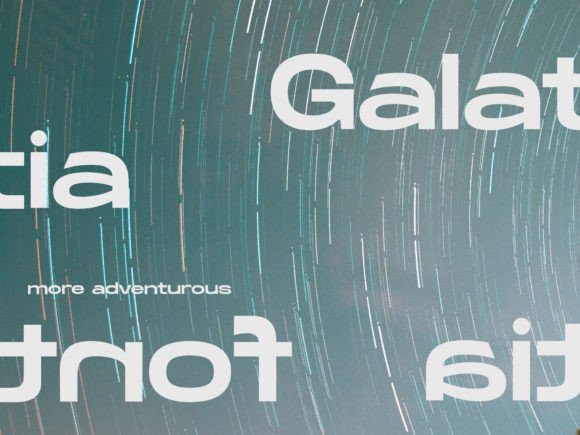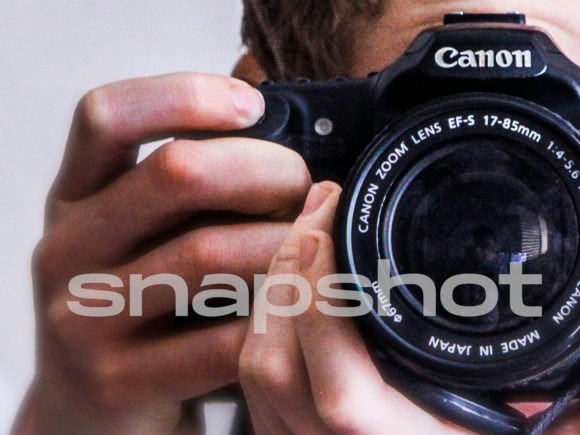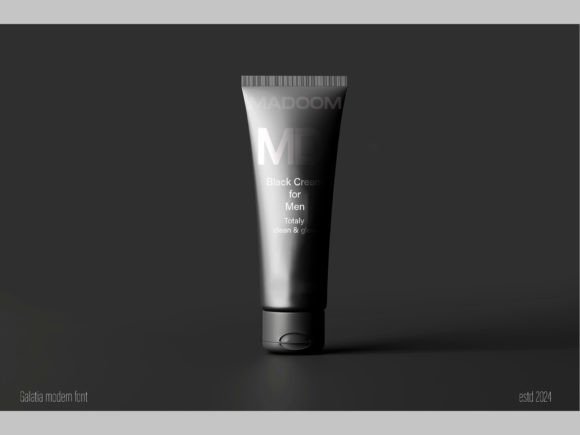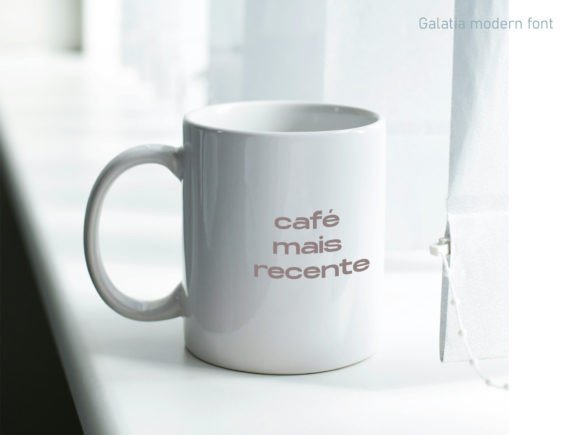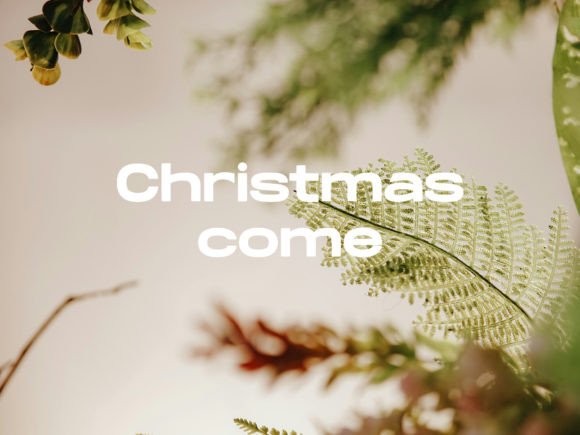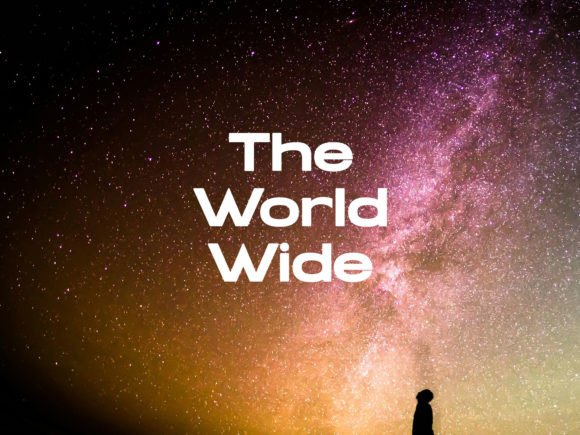
Introduction to Galatia Font
Have you ever stared at a blank page, waiting for the perfect font to spark your creative vision? For many designers, this is a familiar moment – a moment of inspiration and frustration all at once. As you search for the ideal design resource, you might stumble upon the Galatia Font, a game-changing addition to your toolkit.
With its ultra-modern aesthetics and robust dynamism, the Galatia Font is a masterfully crafted typeface that effortlessly captures attention. Whether you’re working on a high-profile project or a personal creative endeavor, this font is sure to bring a touch of sophistication to your design. Plus, with its transparent background and high-quality design, you can easily use it for free downloads or incorporate it into your existing design resources.
As a valuable asset for designers, the Galatia Font offers a refreshing uniqueness that can elevate any creative project. From logos to brochures, its bold and clean contours make it the perfect choice for asserting your design charisma with confidence.
Key Features of Galatia Font
- Galatia Font is a high-quality design resource ideal for creative projects requiring elegant typography.
- Features a transparent background, allowing for seamless integration with any design or creative project.
- Galatia Font is designed to be highly legible, making it perfect for use in a variety of contexts, from body text to headings.
- The font’s unique, elegant design makes it an excellent choice for creative projects requiring a touch of sophistication.
- Galatia Font is a high-resolution font, ensuring crisp and clear typography in any design or creative project.
Honest Review: Galatia Font
I recently had the chance to work with the Galatia Font and I must say it’s been a game-changer for my design projects. With its free download option, I was able to easily incorporate it into my workflow without breaking the bank.
One of the standout features of the Galatia Font is its high-quality design. The font has a beautiful, elegant aesthetic that’s perfect for creative projects that require a touch of sophistication. I particularly love the transparent background option, which allows for seamless integration with my design elements.
Here are some of the things that work well with the Galatia Font:
- ✨ Elegant design aesthetic that’s perfect for creative projects
- ✨ High-quality font that’s ideal for print and digital designs
- ✨ Transparent background option for easy integration with design elements
However, I did encounter some limitations while working with the Galatia Font:
- ⚠️ Limited font sizes available, which may limit its use in certain design contexts
- ⚠️ May not be suitable for designs that require bold, attention-grabbing typography
Overall, I’m impressed with the Galatia Font and would highly recommend it to designers looking for a high-quality, elegant font for their creative projects.
Tips for Getting the Most Out of Galatia Font
Experiment with different font sizes, colors, and effects to create unique and eye-catching designs. Use the Galatia Font in combination with other design elements, such as images or graphics, to add depth and visual interest to your project.
The Galatia Font is ideal for a variety of creative projects, including logos, brochures, business cards, and social media graphics. Its high-quality design and transparent background make it a versatile and effective design resource for any project.